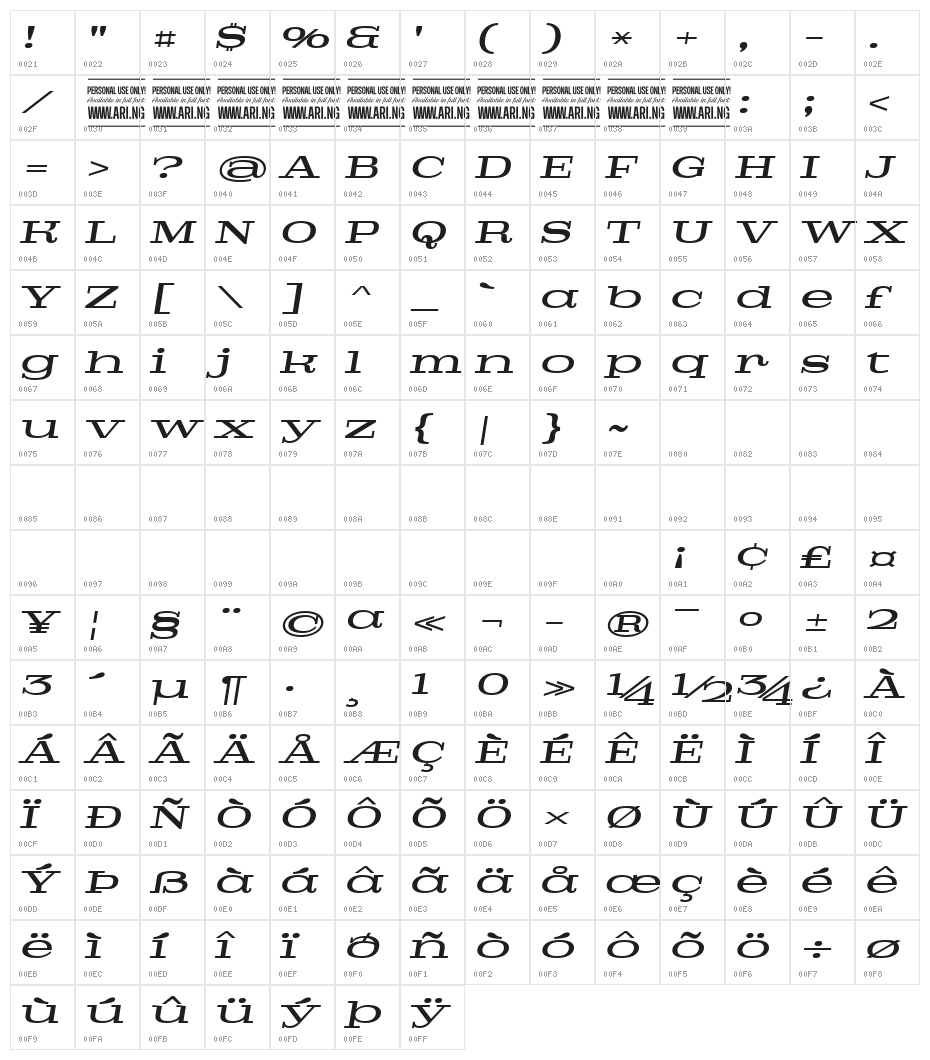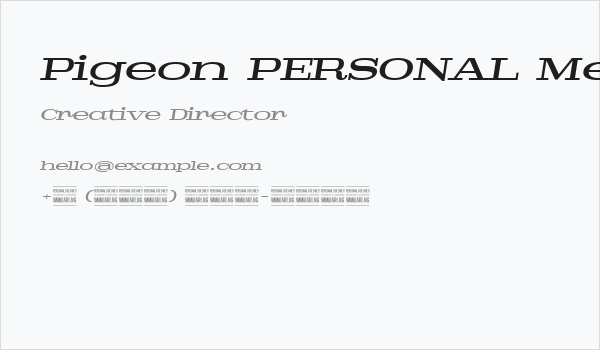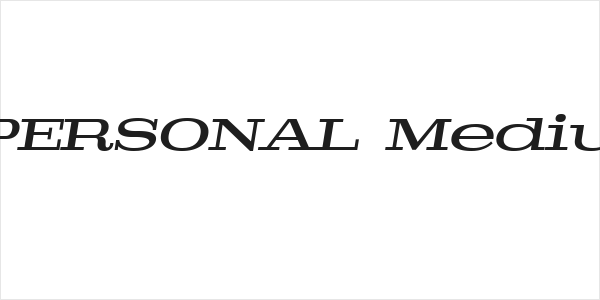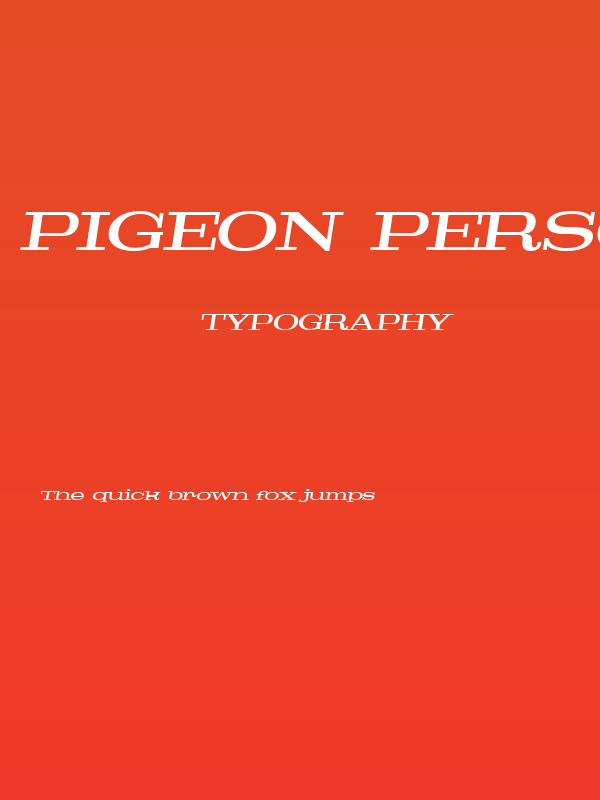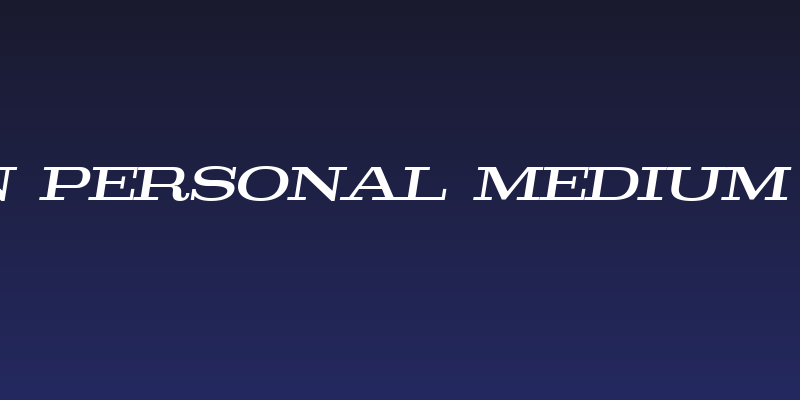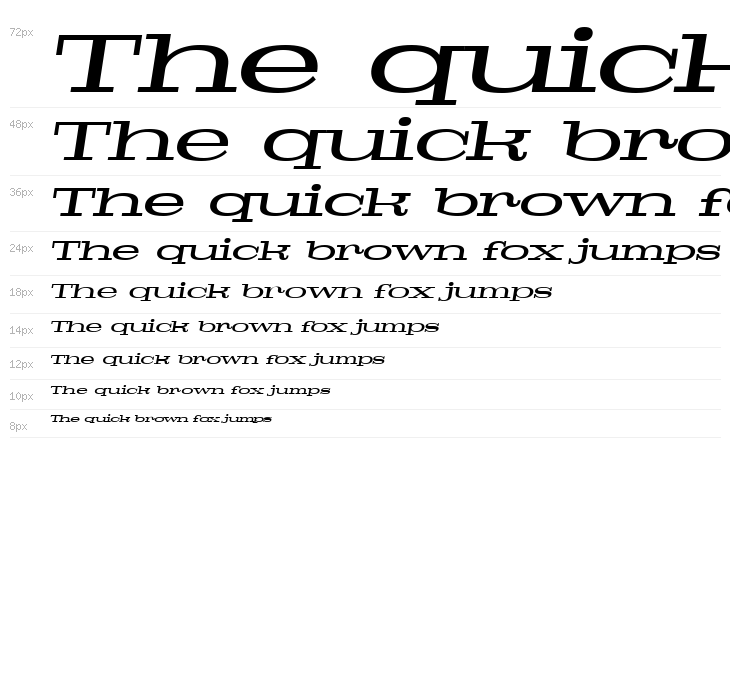
Pigeon PERSONAL Medium Italic Font
Pigeon PERSONAL Medium Italic Description
This font features a distinct italic style with a medium weight, giving it a sleek and elegant appearance. The characters are slightly slanted, adding a dynamic and sophisticated touch to the text. The serif elements are subtle, providing a classic feel without overwhelming the modern aesthetic. The font maintains a consistent stroke width, ensuring readability while offering a unique flair. The spacing between characters is normal, allowing for clear legibility across various applications. This font is versatile, suitable for both digital and print media, and can enhance the visual appeal of any project.
| Proposed Projects | Ideal for branding, editorial design, invitations, and elegant signage. |